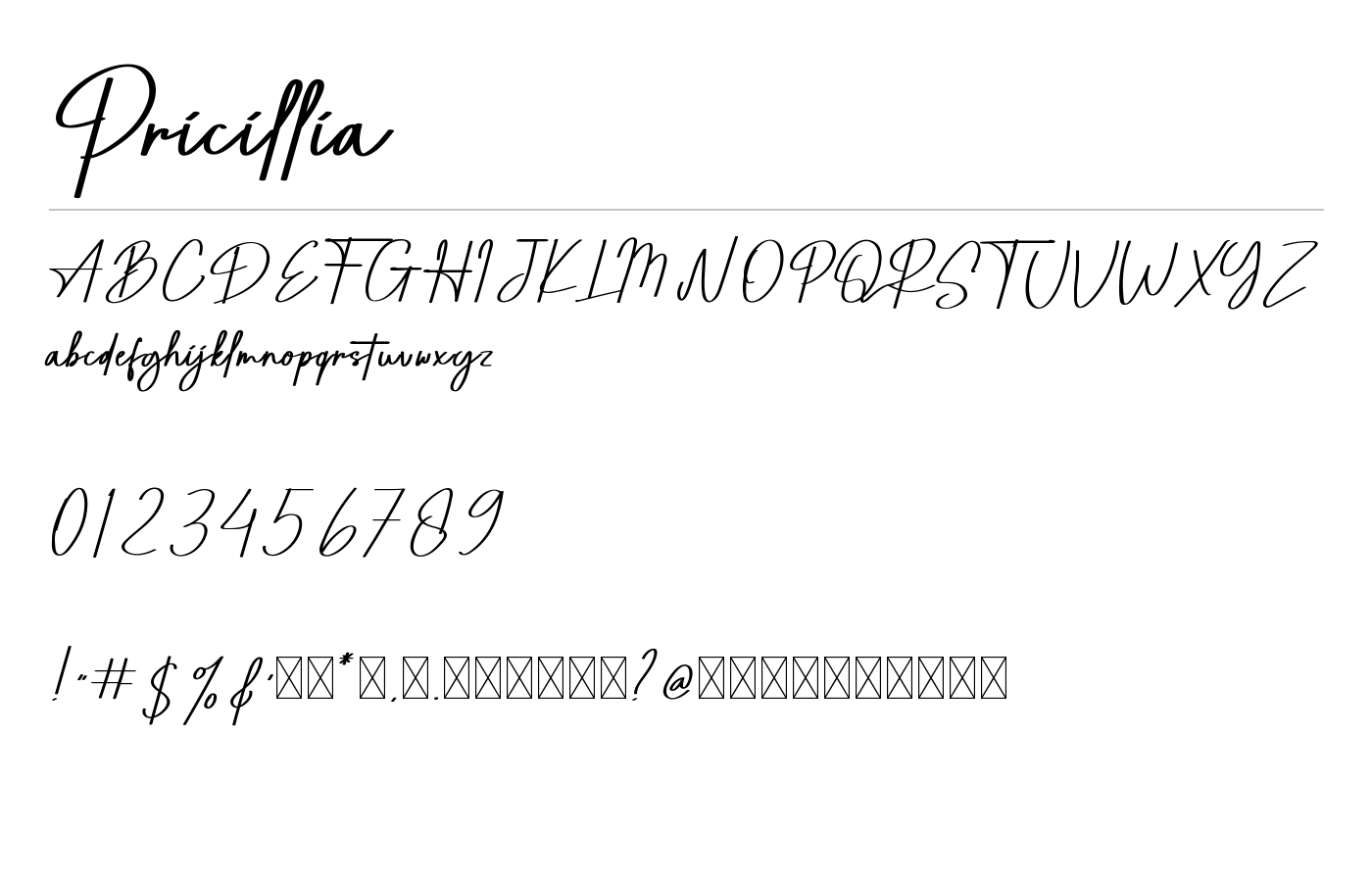
Pricillia is a delicate, stylish script font with a light and flowing handwritten feel. Its elegant, slightly elongated letterforms and smooth curves convey a sense of grace and sophistication, making it ideal for invitations, branding, and designs that seek a personal, refined touch. This font works beautifully for fashion, beauty, and lifestyle projects where a chic and modern script style is desired.
Pricillia Font
About Pricillia Font